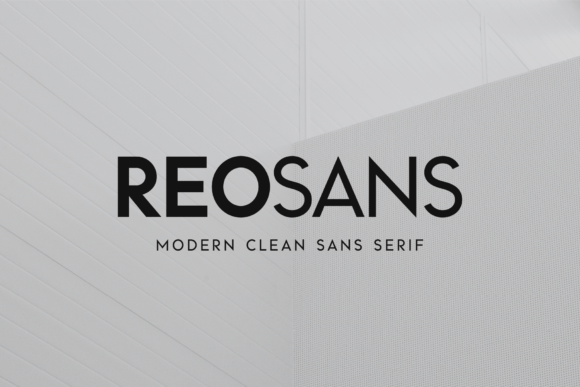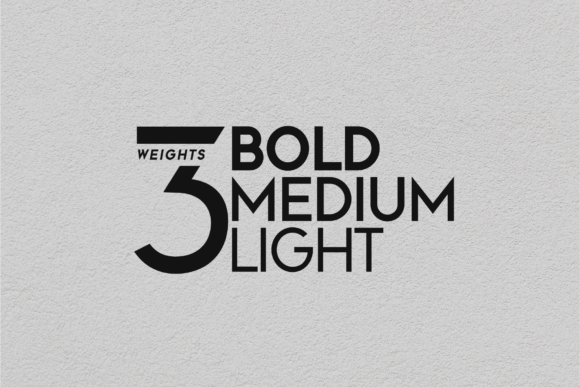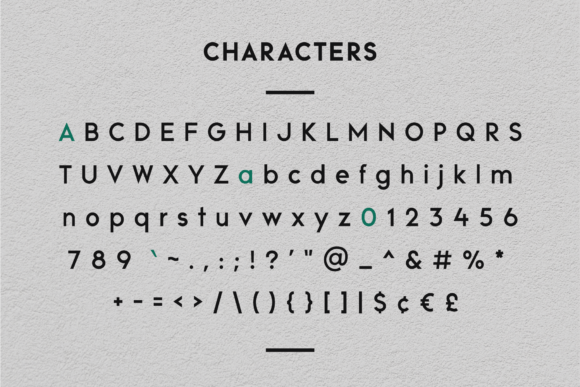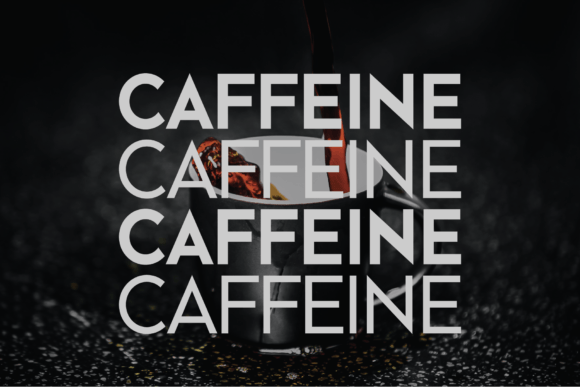
Reo Sans Font
About the Reo Sans Font
Elevate your designs with Reo Sans Font, a font that combines sophistication with readability. Reo sans is a modern geometric sans serif font featuring 3 weights bold, medium, and light. this is a timeless sans serif typeface with a clean and modern feel. Reo Sans is a perfect choice for logo designs, branding, packaging, posters, social media posts, and so on.
Reo Sans’s geometric structure and clean lines lend themselves best to headlines, branding applications, and short-form text such as posters and social media graphics. Its modern aesthetic makes it ideal for projects conveying technological advancement, sophistication, or minimalist design. Avoid using Reo Sans for large blocks of body text or user interfaces where high readability over long passages is crucial; its geometric nature can strain legibility at smaller sizes.
Pairing Reo Sans with a complementary serif like Garamond or a warmer, slightly rounded sans-serif such as Lato would create visual balance and contrast. For a more playful feel, consider pairing it with a script font like Allura, but use it sparingly as an accent. The overall personality of Reo Sans is modern, clean, and confident.
Its bold weight provides a strong visual impact for logos and headlines, while the lighter weights offer versatility in subheadings and supporting text. Brands emphasizing innovation, technology, or a sleek aesthetic would find Reo Sans highly suitable.
Reo Sans Font Usage Examples
Reo Sans Font Example